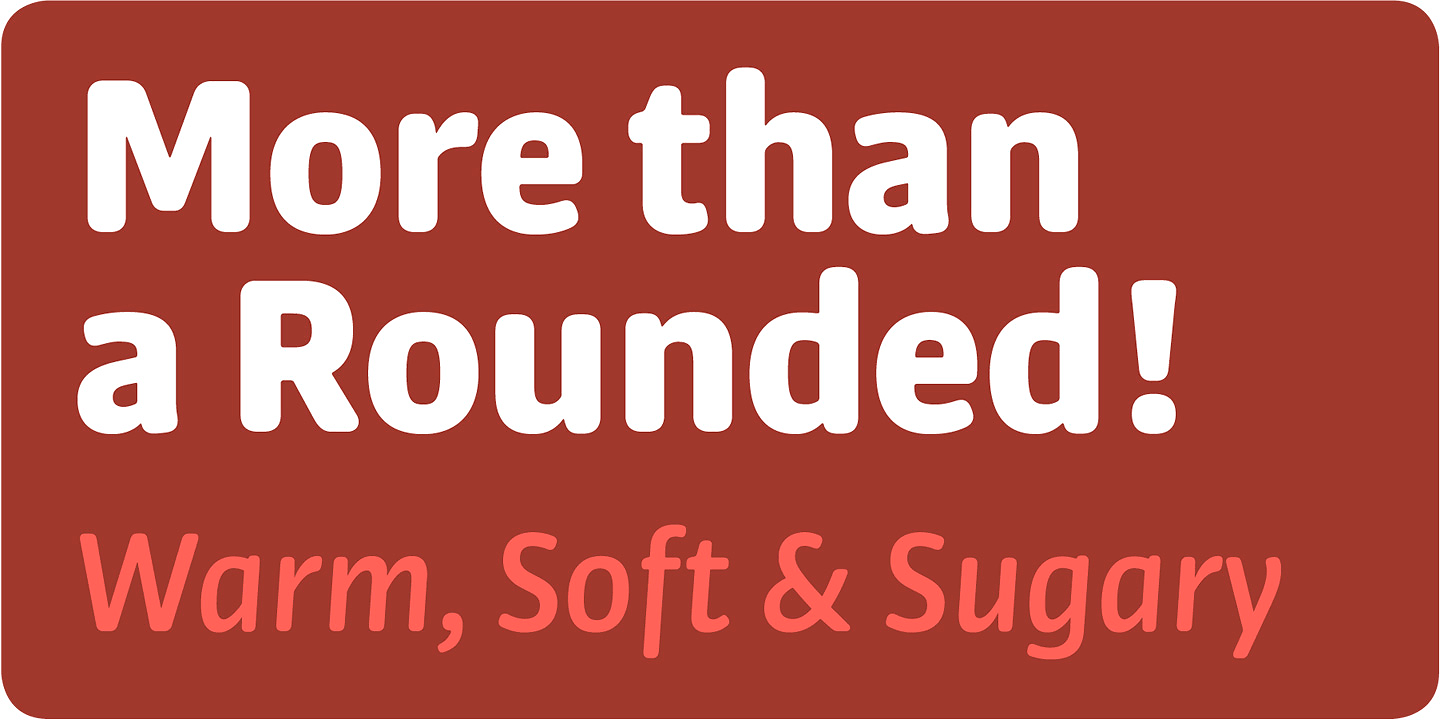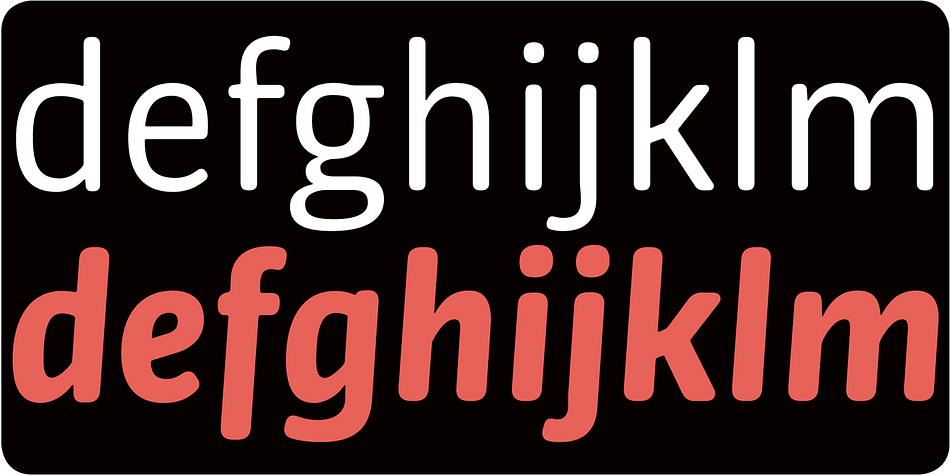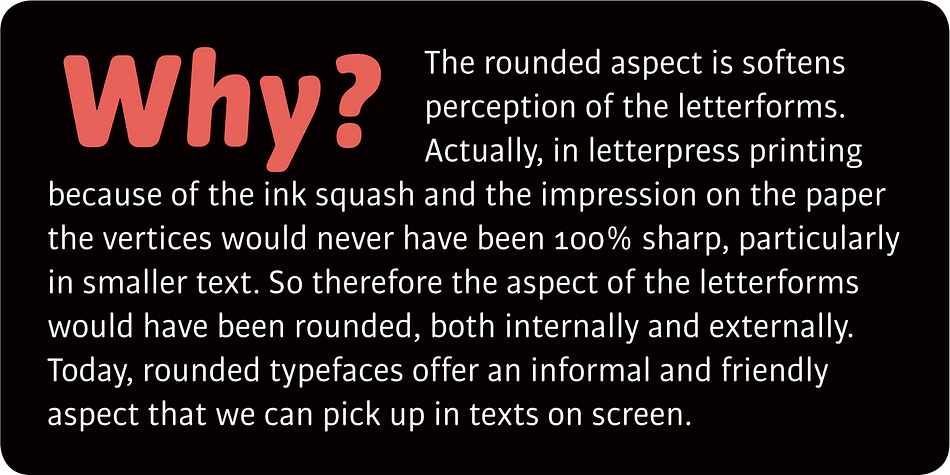
Bulo Rounded is a sans serif font family. This typeface has ten styles and was published by Tipografies.
Bulo Rounded is a real Rounded: not only the beginning and the end of the strokes are rounded, but also the counters and the intersections of the glyphs. The result is a smooth effect that brings a warm feeling, and the rounded text is perceived in a logical and natural way.